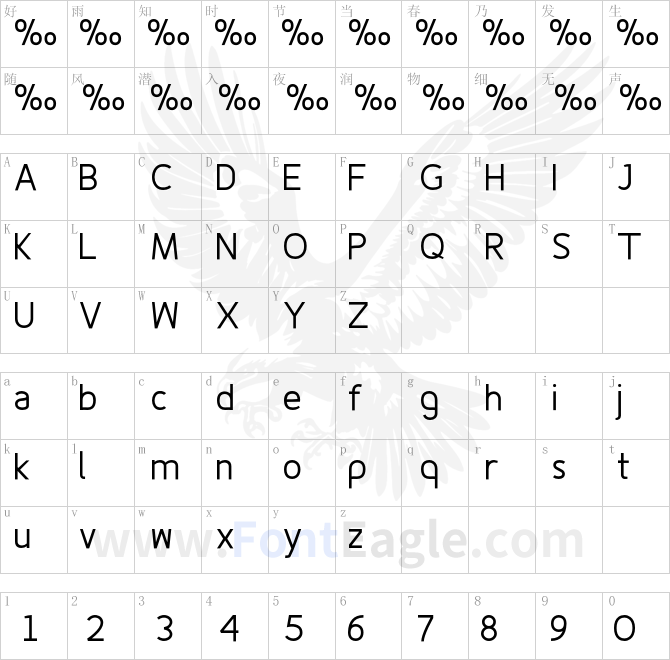
Fineness-Pro-Regular is a great font, widely used in graphic design, single-page menu design, poster design and other fields, and is deeply loved by designers.Fineness-Pro-Regular download.